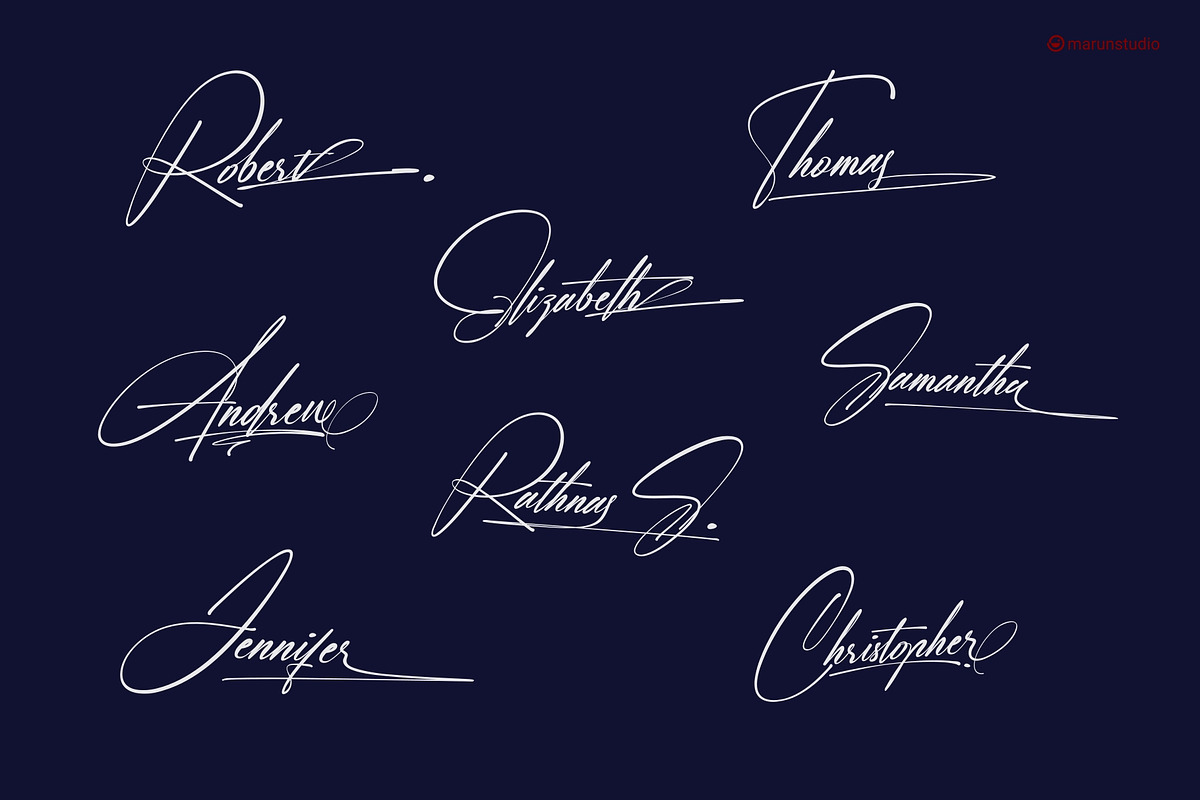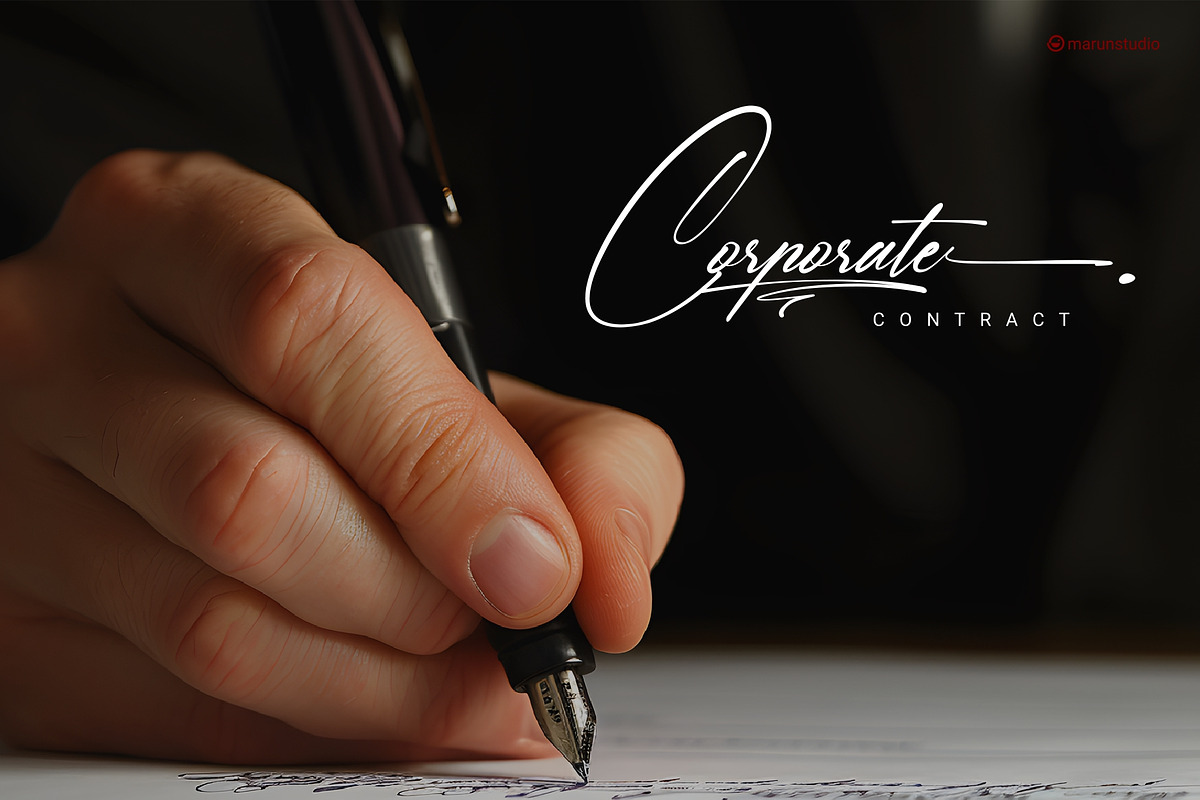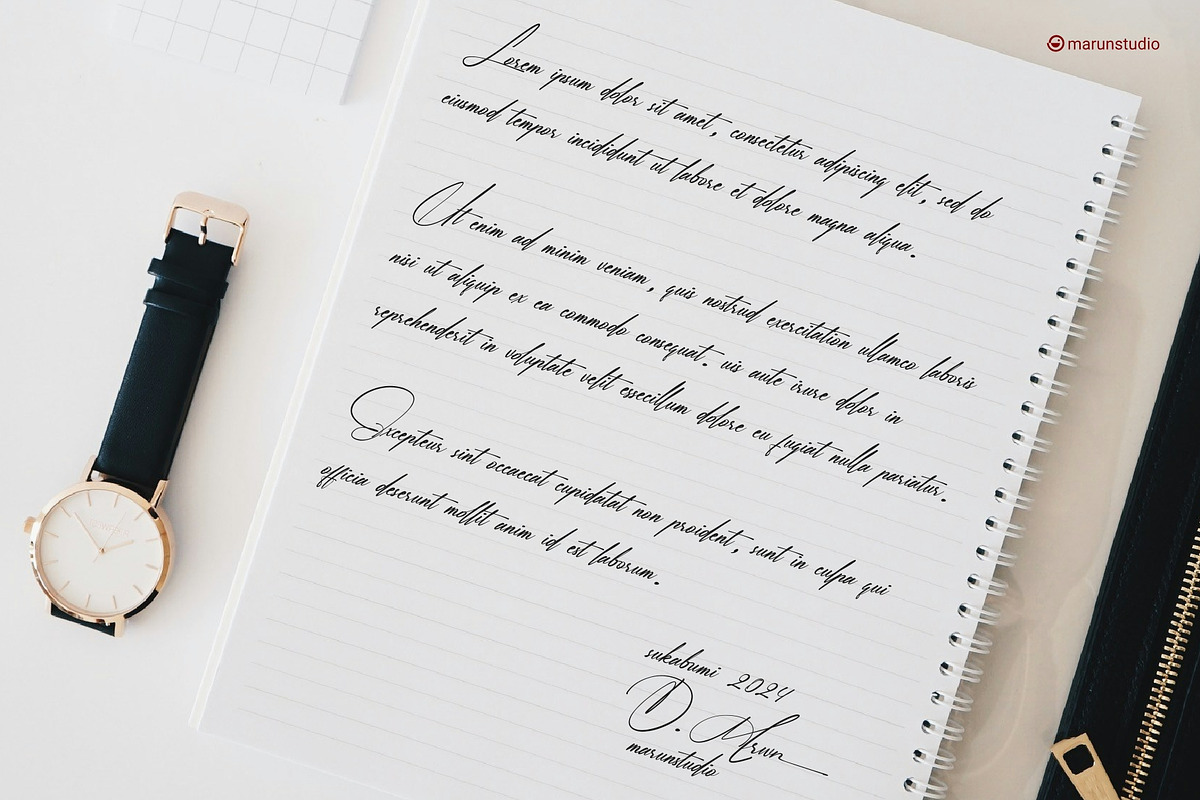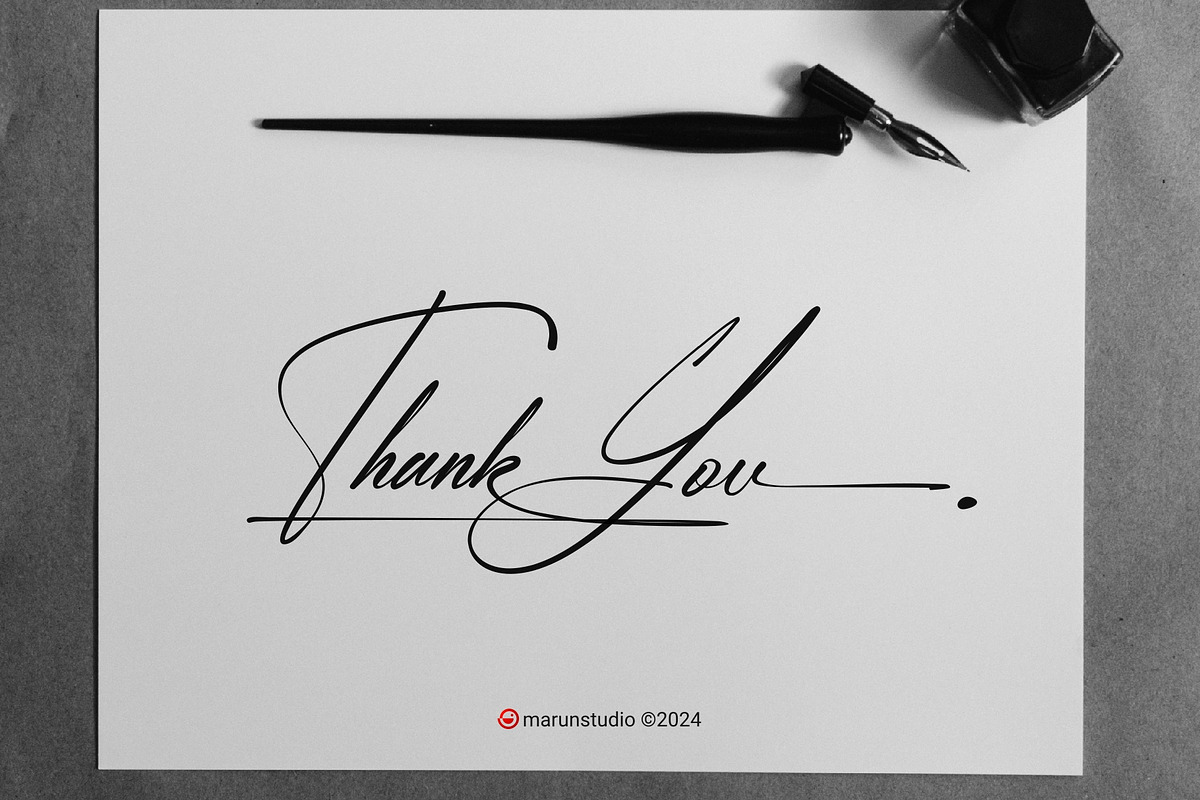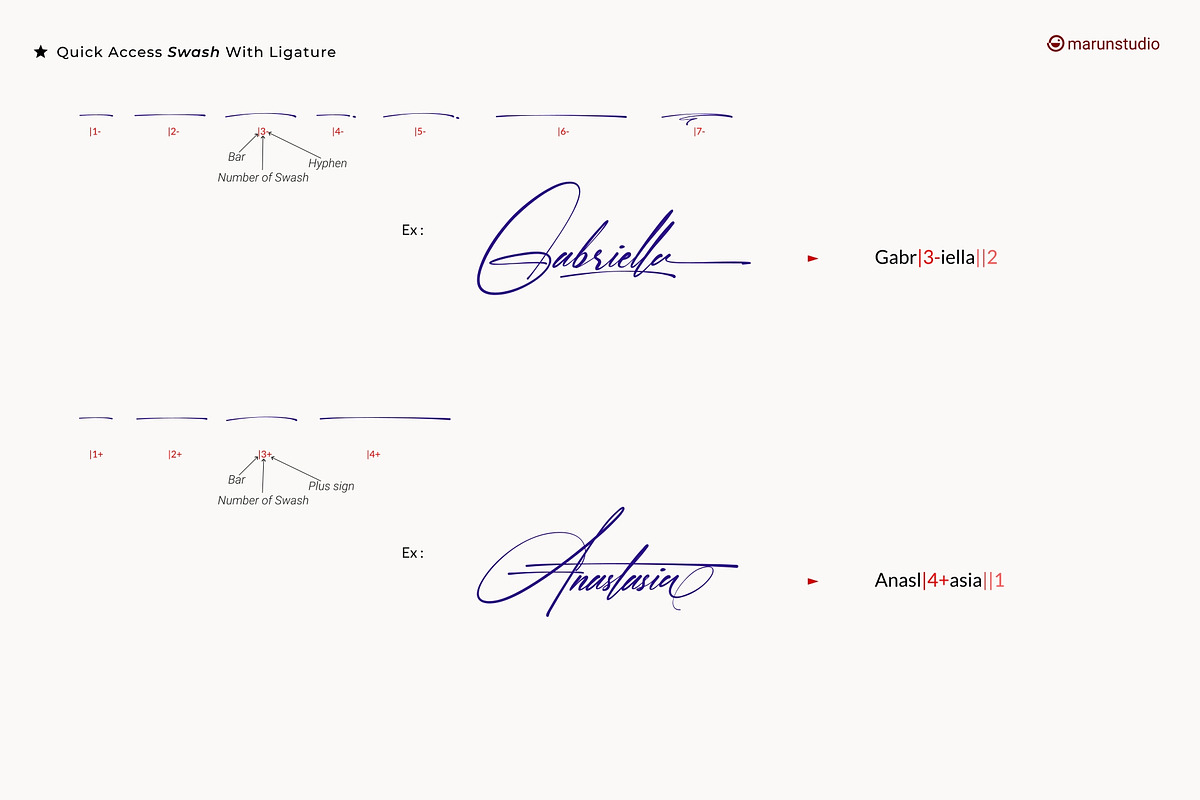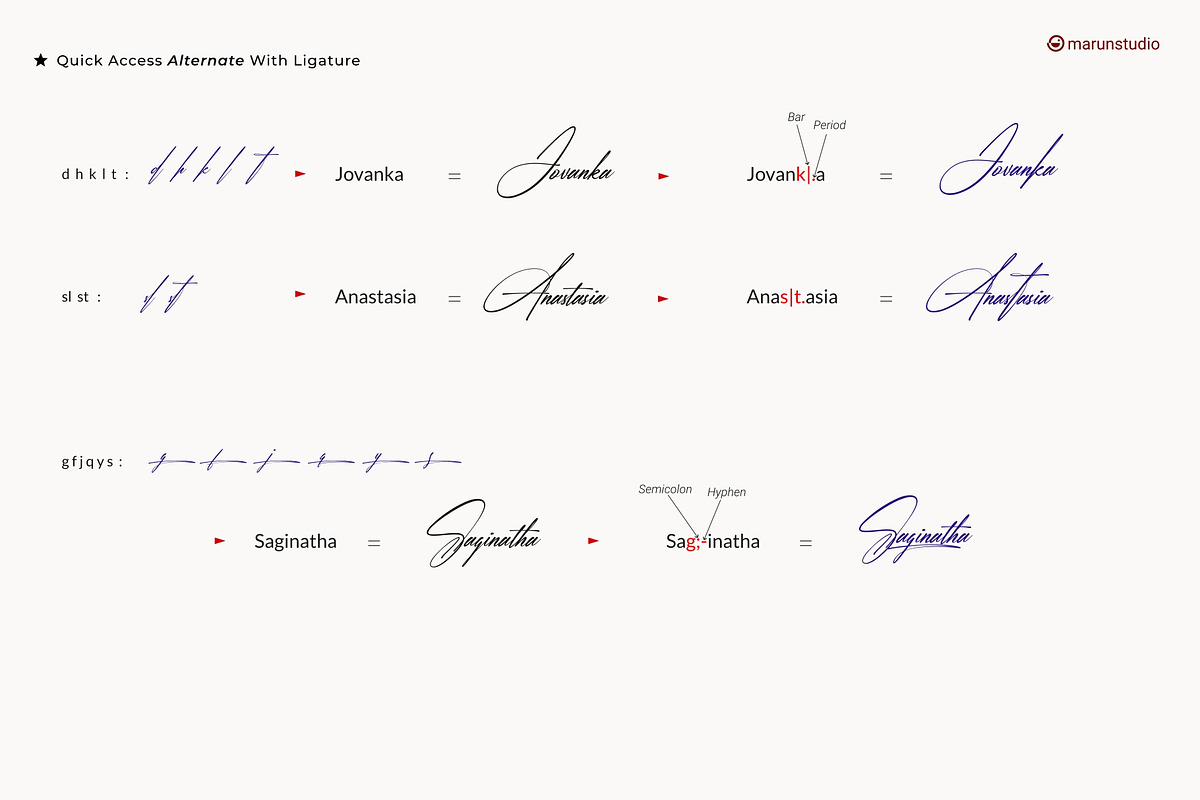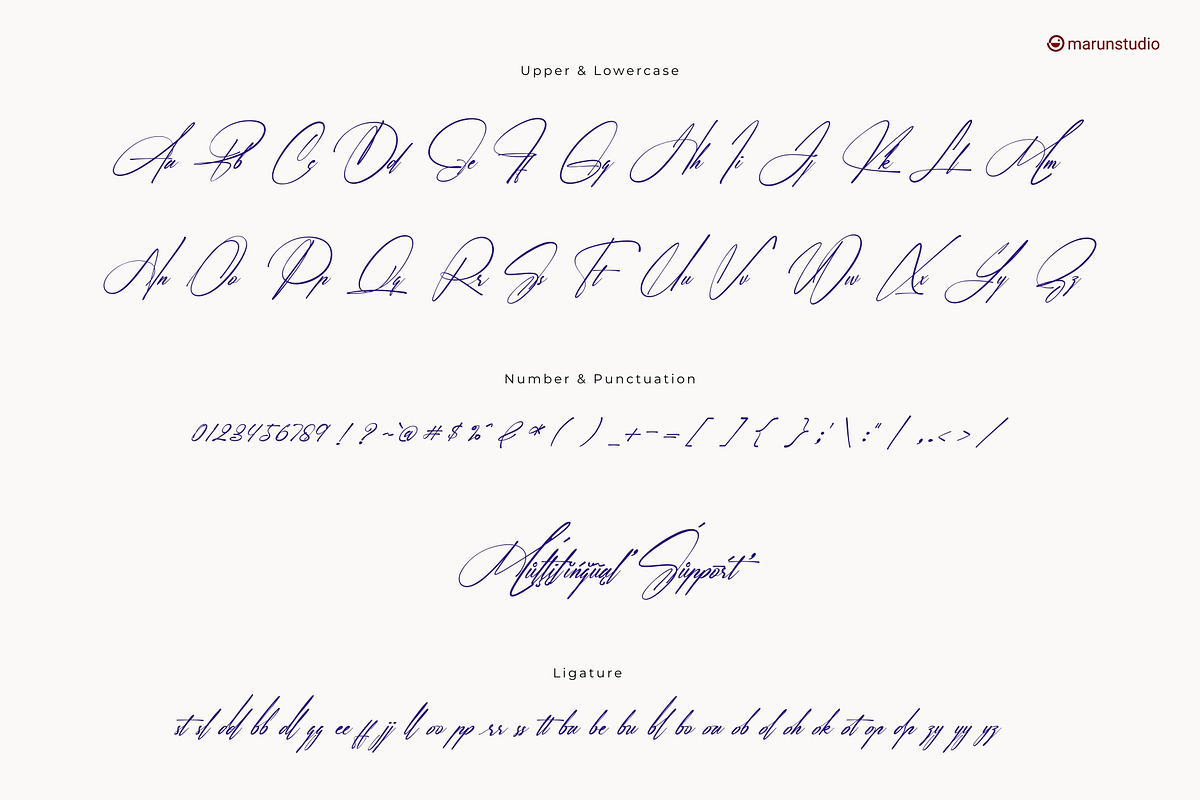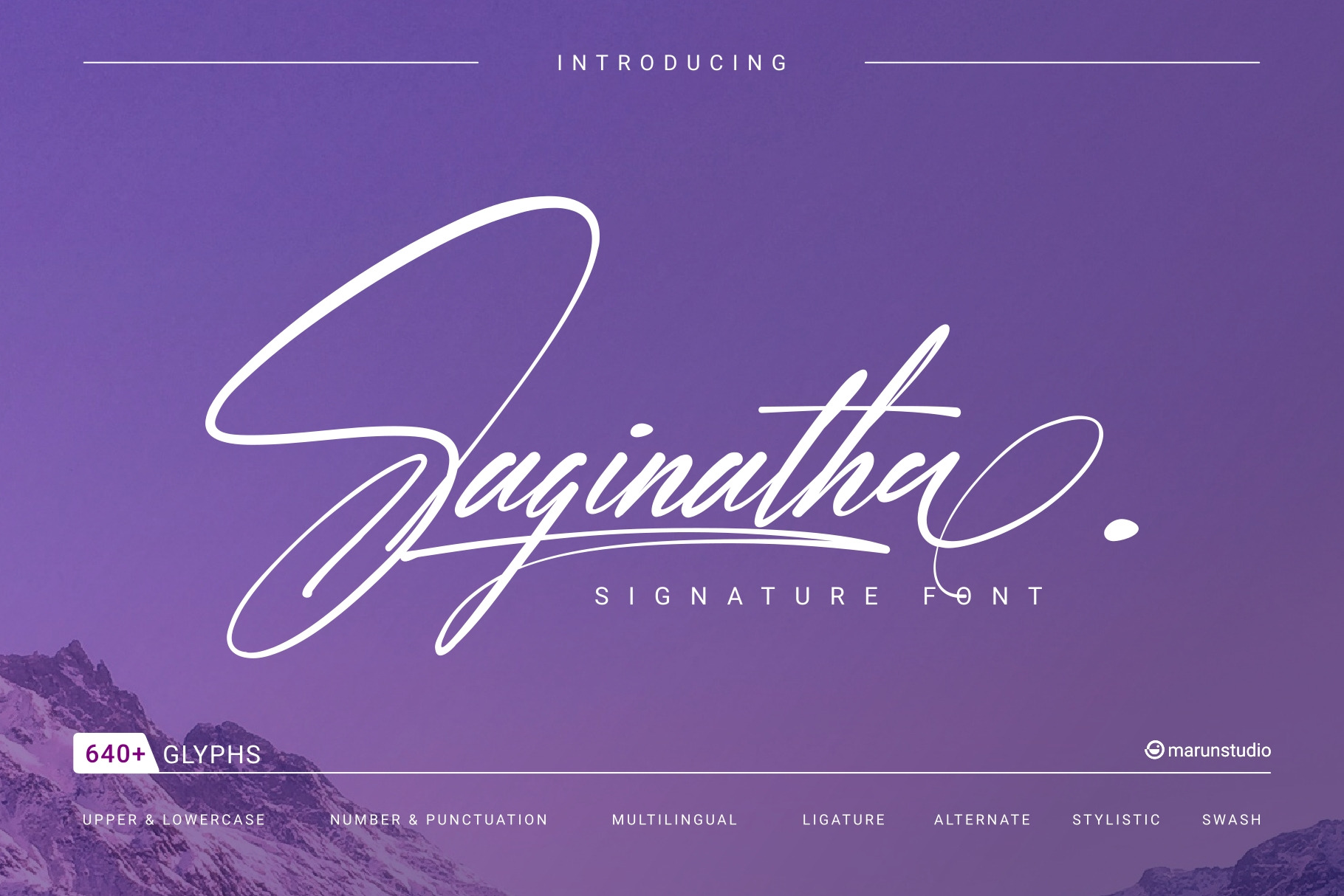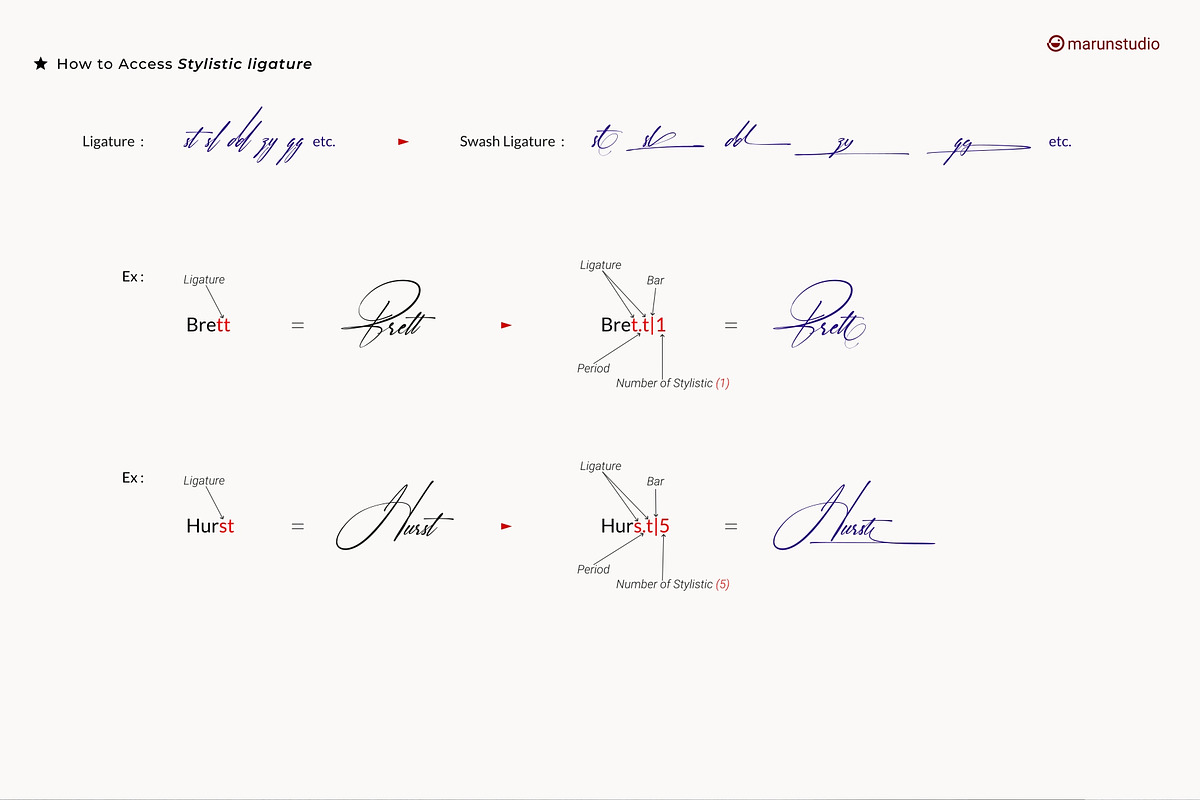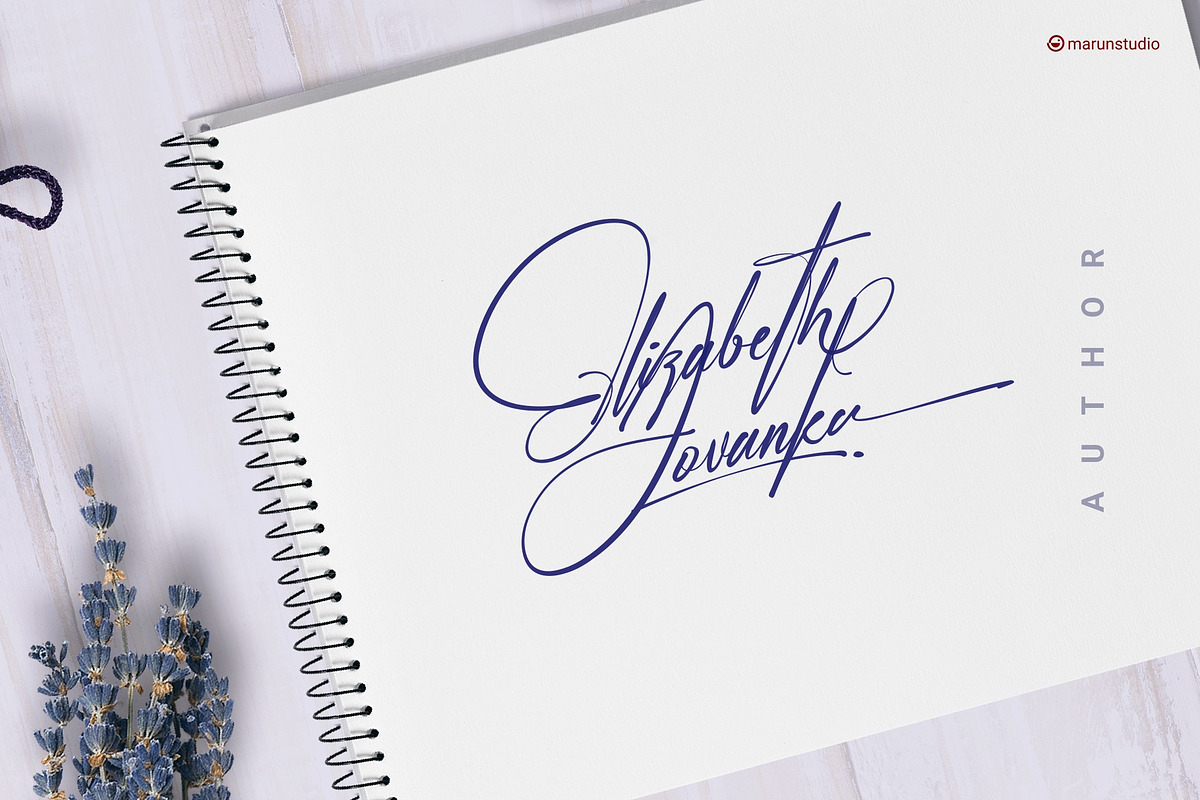
Saginatha - Signature font
Saginatha is a sophisticated signature font designed to bring an elegant and professional touch to your corporate branding. Perfect for business cards, signatures, logos, and any high-end design project, this font combines a sleek, modern aesthetic with the natural flow of handwritten script. Its refined strokes and balanced characters make it ideal for conveying professionalism and credibility in your corporate materials.
Upper and Lowercase
Number and Functuation
Ligature
Alternate
Stylistic
Swash